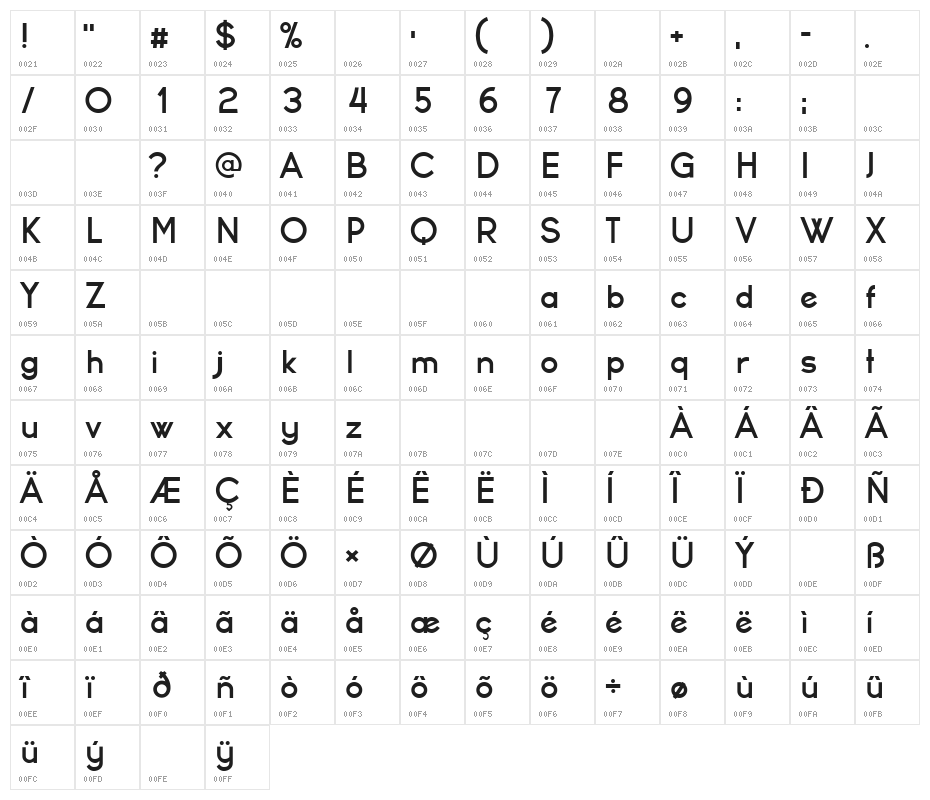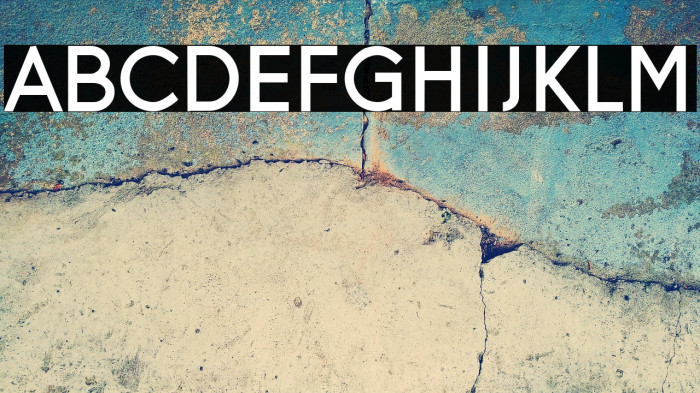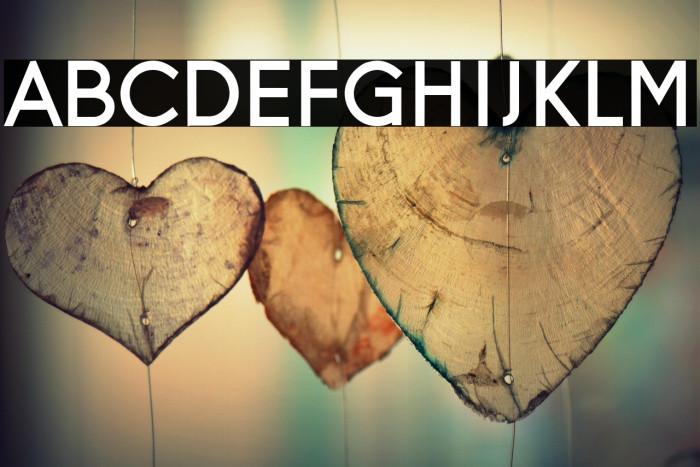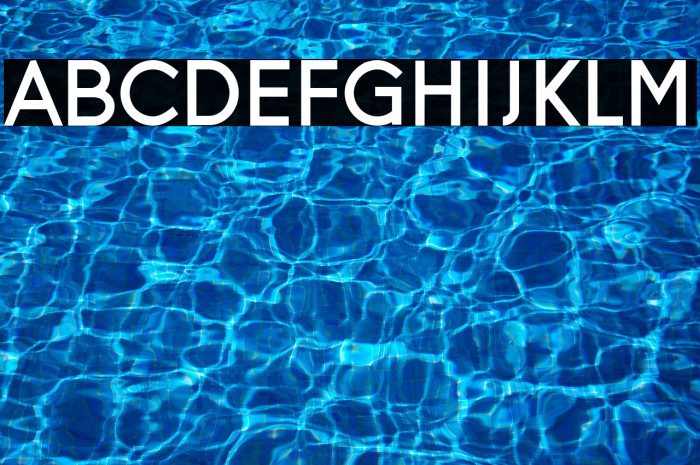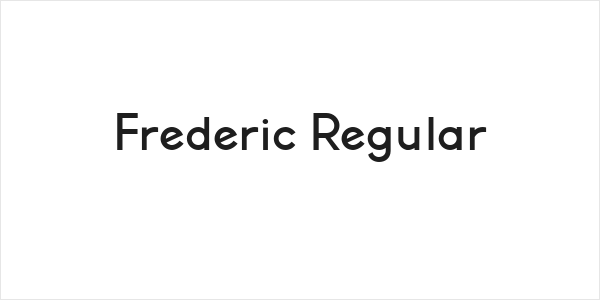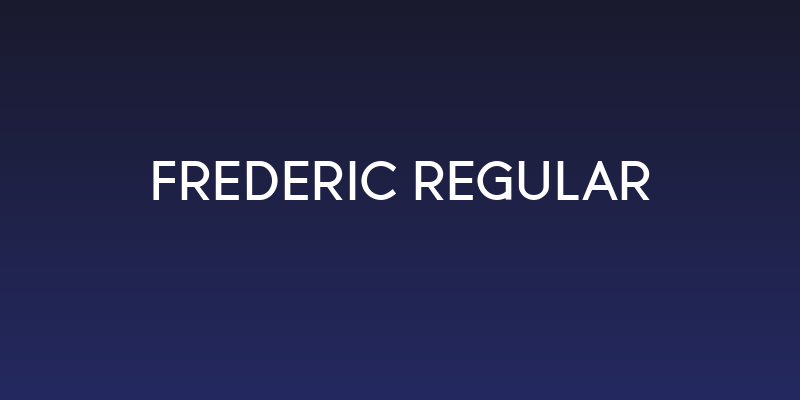
Frederic Regular Font
Frederic Regular Description
This font features a clean and modern sans-serif design with uniform stroke widths, creating a balanced and harmonious appearance. The characters are well-proportioned, offering excellent readability. The uppercase letters are bold and assertive, while the lowercase letters maintain a friendly and approachable look. The numerals are clear and distinct, making them suitable for various applications. Special characters are designed with simplicity, ensuring they blend seamlessly with the rest of the typeface. Overall, this font exudes a contemporary and professional vibe, making it versatile for numerous design projects.